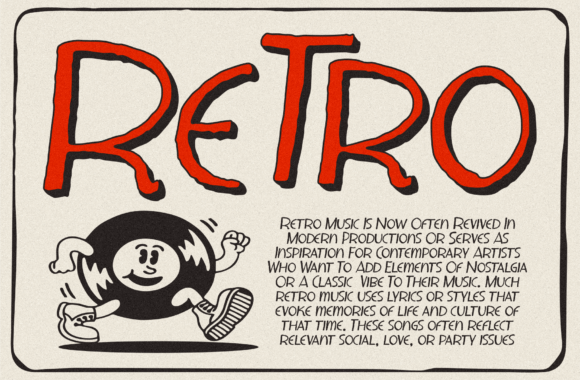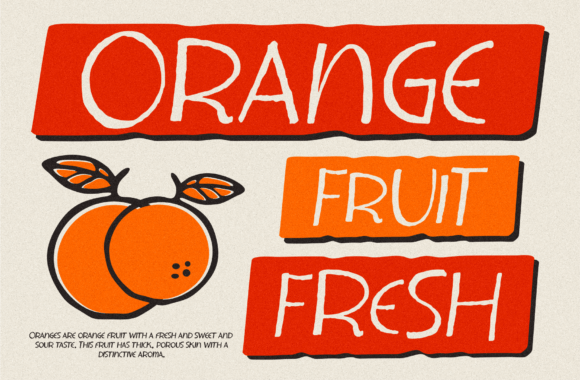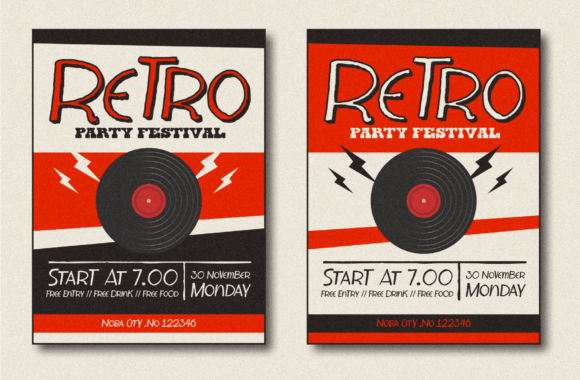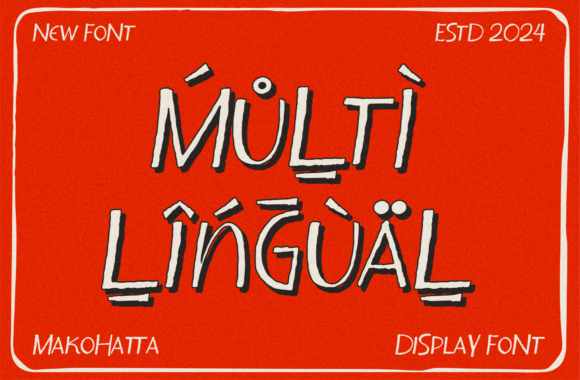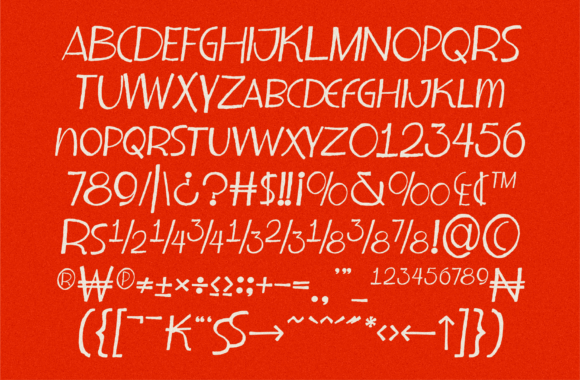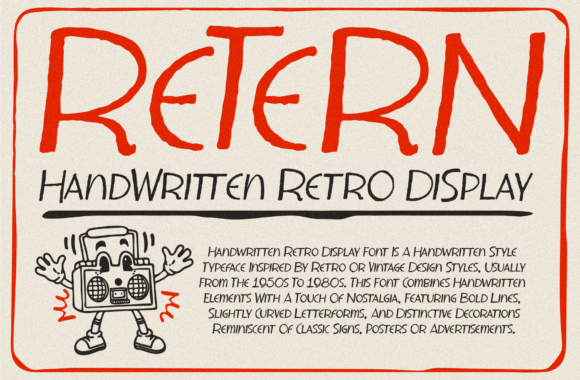
Introduction to Retern Font
Have you ever been working on a creative project and suddenly, the perfect font pops into your mind, elevating the entire design? That’s exactly what happened when we created the Retern Font – a beautiful, handwritten retro display font that adds a touch of elegance to any design. Its versatility and timeless appeal make it a valuable asset for designers looking to create high-quality, visually appealing designs.
As a design resource, Retern Font is perfect for those who want to add a personal touch to their projects without compromising on professionalism. With its clean lines, simple yet striking aesthetic, and transparent background, it’s an excellent choice for designers who want to create a lasting impression. And the best part? You can download it for free, making it an accessible design tool for creative minds around the world.
Key Features of Retern Font
- High-quality design resource for creative projects, ideal for digital and print media.
- Features a transparent background, making it easy to use in various design applications.
- Includes a wide range of glyphs and characters, making it suitable for various languages and scripts.
- Unique characteristic: a modern and sleek design aesthetic, perfect for contemporary creative projects.
Honest Review: Retern Font
As a designer, I’m always on the lookout for high-quality design resources to elevate my creative projects. The Retern Font is one such resource that caught my attention, and I’m excited to share my honest review.
- ✨ Elegant and modern design aesthetic that’s perfect for minimalist designs
- ✨ Clear and readable typography, even on small screens
- ⚠️ Limited character set, which may not be suitable for extended text-based designs
- ⚠️ No transparent background option, which may not be ideal for designs requiring a subtle background
Overall, the Retern Font is a solid addition to any designer’s toolkit. While it may have some limitations, its unique design aesthetic and high-quality typography make it a valuable resource for creative projects. With a little creativity, you can work around its limitations and achieve stunning results.
The Retern Font is a versatile and stylish design resource ideal for high-quality creative projects. This free download offers a unique aesthetic that can elevate any design to the next level.
Tips for Getting the Most Out of Retern Font
For the best results, use Retern Font on a transparent background to create a clean and modern look. Experiment with different font sizes and combinations to add depth and visual interest to your design.
Montserrat compares to Retern Font in terms of its modern design, but it lacks the distressed texture that makes Retern Font unique. When to use: Montserrat is best for projects that require a modern and professional look.